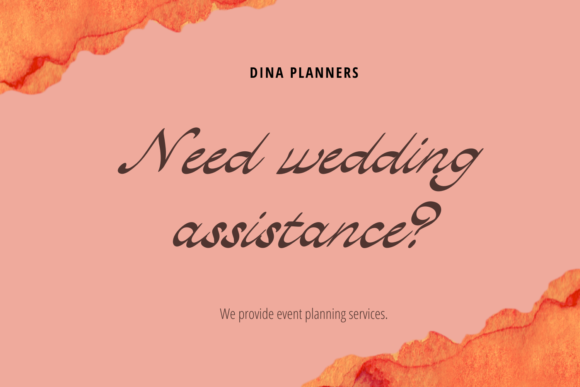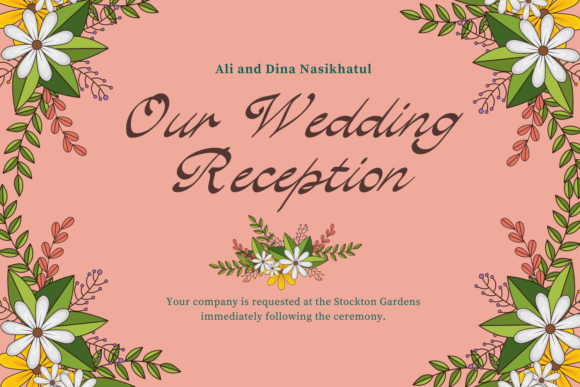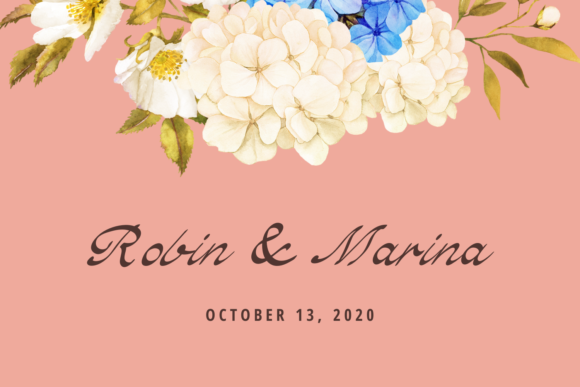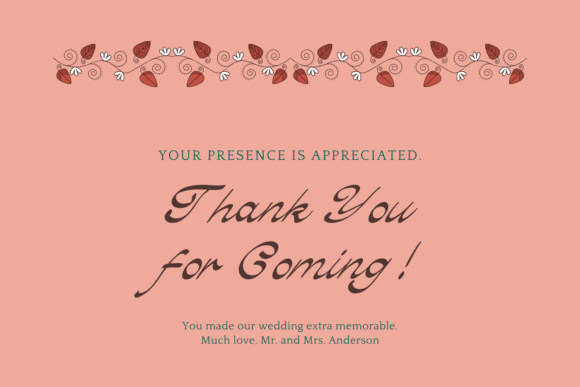
Pretty Savage Font
About Pretty Savage Font
Pretty Savage is an exquisite handwritten font that beautifully combines modern and classic influences, making it a versatile choice for a wide range of projects. Here are some ways you can use Pretty Savage font to enhance your designs:
1. Branding and Logo Design: Use Pretty Savage font to create elegant and stylish logos for various businesses, adding a touch of sophistication and uniqueness to their brand identity.
2. Wedding Invitations: Design stunning wedding invitations with Pretty Savage font, showcasing the perfect blend of modern and classic elements that will set the tone for a memorable event.
3. Quotes and Posters: Create inspiring and motivational quotes or eye-catching posters using Pretty Savage font. Its distinct style will draw attention and make your message stand out.
4. Social Media Graphics: Use Pretty Savage font for your social media graphics, such as Instagram posts, stories, and Pinterest pins, to add a touch of elegance and professionalism to your content.
5. Product Packaging: Apply Pretty Savage font to product labels and packaging for a chic and sophisticated appearance that will attract customers’ attention.
6. Editorial Designs: Incorporate Pretty Savage font into magazine layouts, book covers, or editorial spreads, elevating the overall design with its exquisite charm.
7. Merchandise and Apparel: Create trendy and fashionable merchandise and apparel using Pretty Savage font. It’s perfect for t-shirts, hoodies, and other items that need a touch of elegance.
8. Website Headings: Use Pretty Savage font for website headings and titles, making them visually appealing and welcoming to visitors.
9. Stationery: Design stylish and elegant stationery sets, including notepads, letterheads, and business cards, using Pretty Savage font.
10. Calligraphy Art: Create beautiful calligraphy art pieces with Pretty Savage font, showcasing the seamless blend of modern and classic calligraphic elements.
In summary, Pretty Savage is an exquisite handwritten font that blends modern and classic influences, making it a valuable addition to various design projects. Whether you’re working on branding, wedding invitations, quotes, or social media graphics, Pretty Savage will add an element of elegance and sophistication to your creations. Embrace the versatility of Pretty Savage font to create beautiful and timeless designs that leave a lasting impression on your audience.